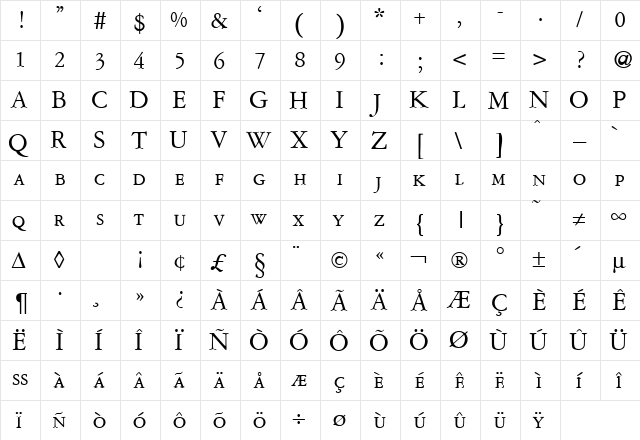
AmsterdamerGaramontSmc Regular
Design Context for AmsterdamerGaramontSmc Typeface
AmsterdamerGaramontSmc offers clean, dependable letterforms without strong stylistic allegiance, making it a practical choice for designers who need flexibility.